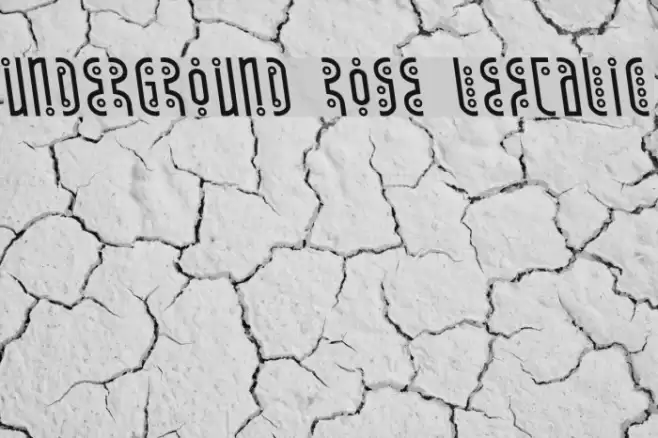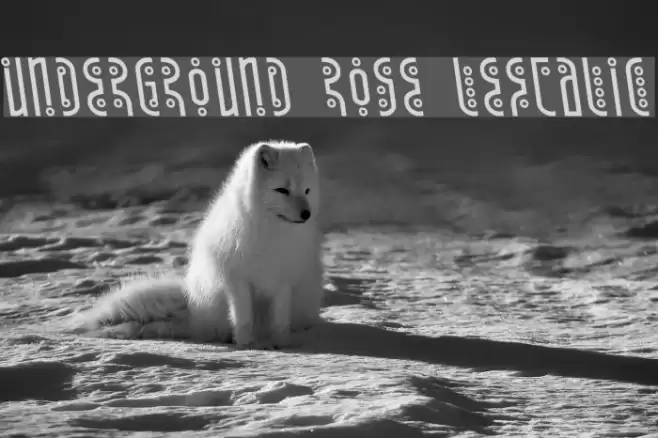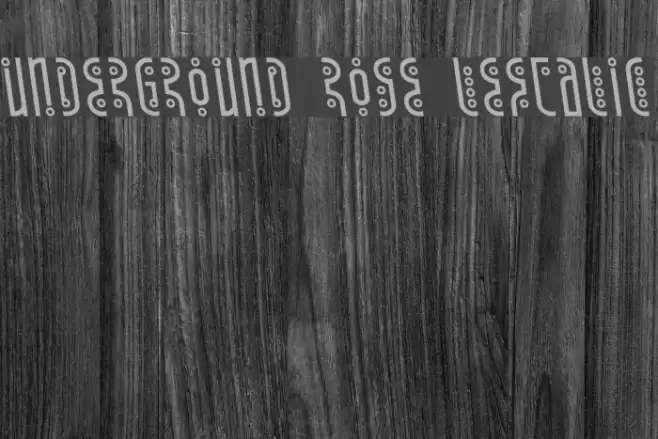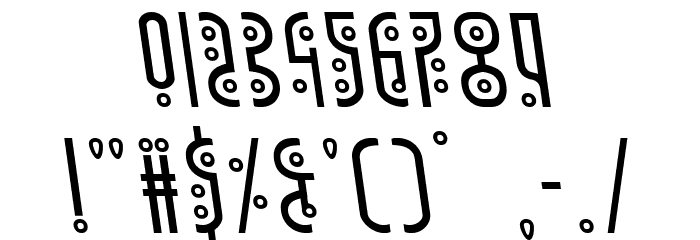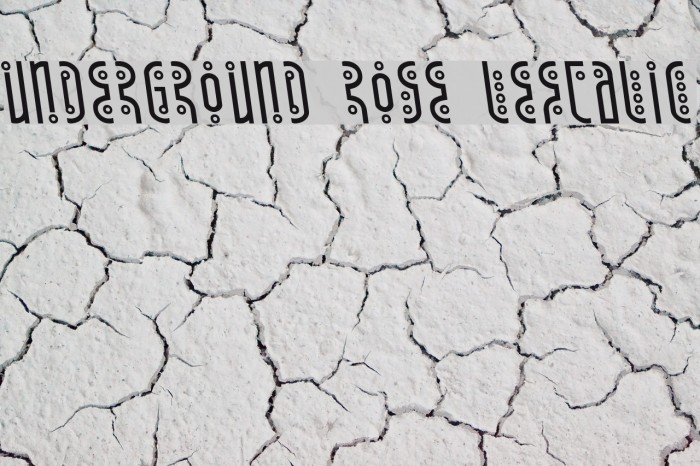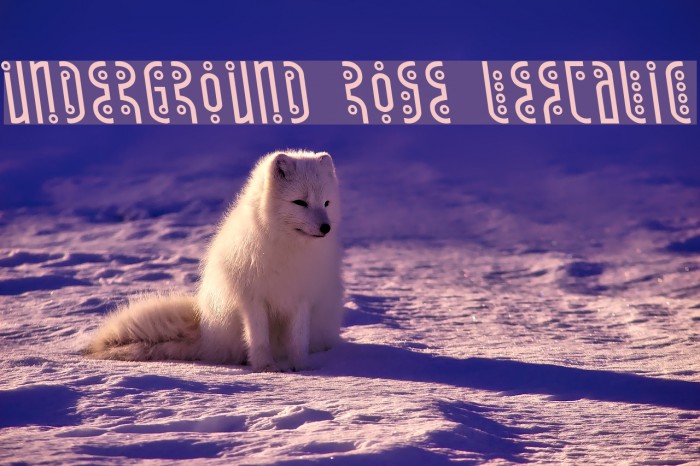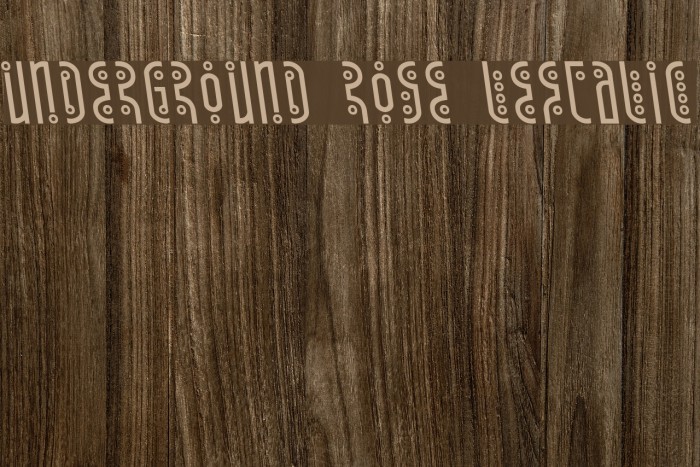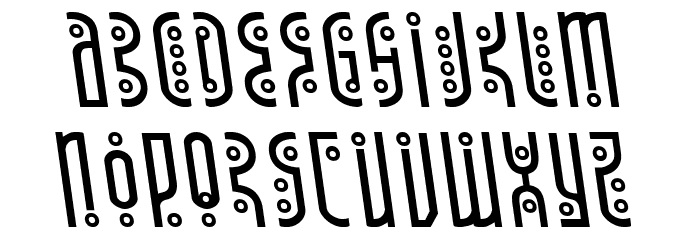
Underground Rose Leftalic Font
Underground Rose Leftalic Description
This font features a unique and decorative style with a futuristic twist. Each character is adorned with circular accents and geometric shapes, creating a visually striking appearance. The letters are slightly slanted, giving a dynamic and forward-moving feel. The uppercase and lowercase letters maintain a consistent design, while the numbers and special characters integrate seamlessly with the overall aesthetic. This font's bold and artistic nature makes it stand out, perfect for creative projects that require a modern and edgy look.
A decorative and futuristic font with circular accents and geometric shapes from Uncategorized fonts.
- Proposed Projects: Ideal for sci-fi themed designs, posters, album covers, and branding that requires a modern edge.
- Use Case: Logos, Posters, Album covers